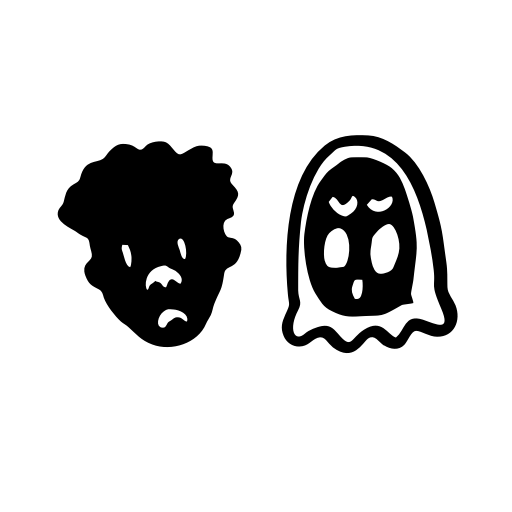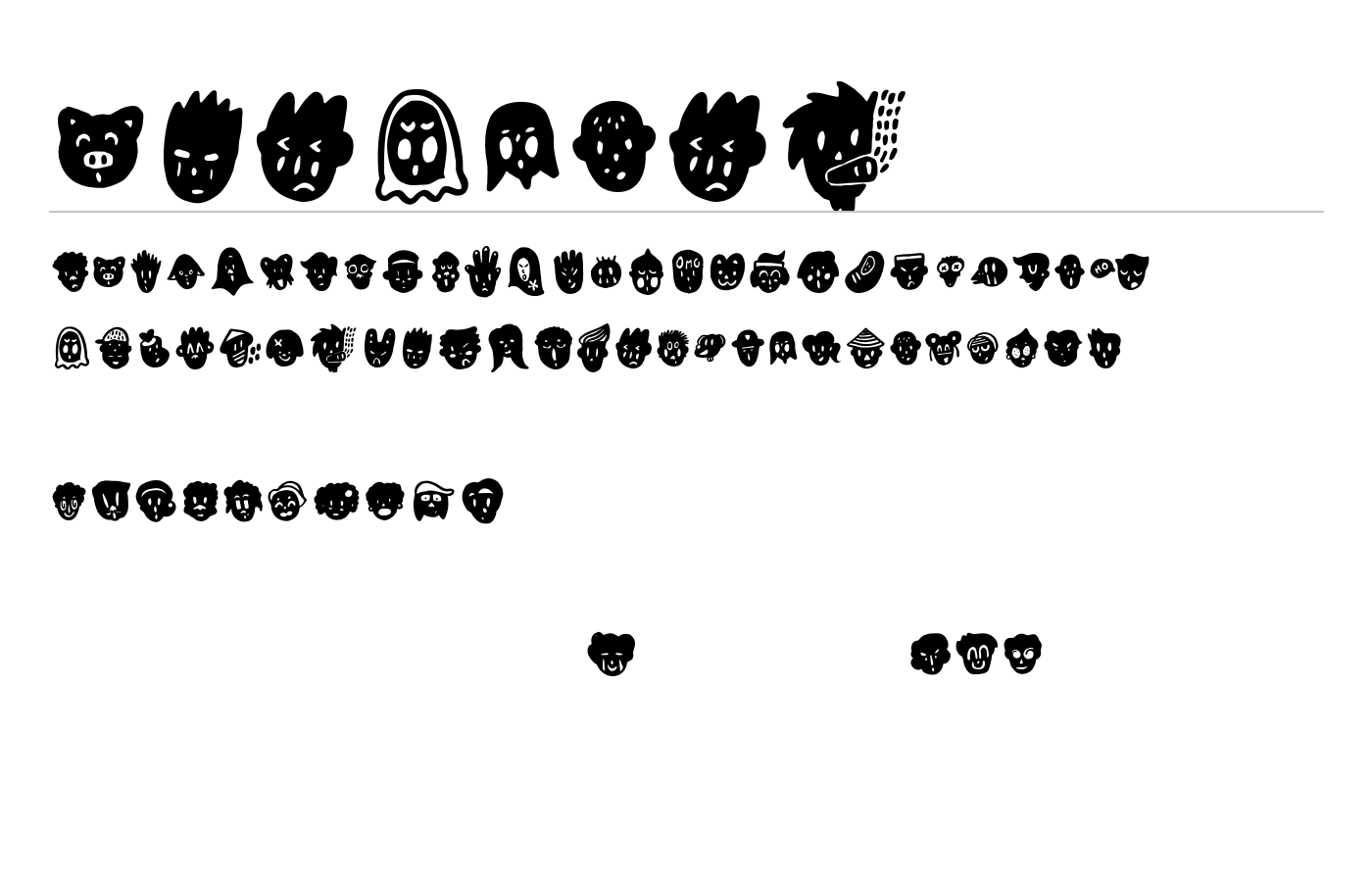
Binarung Font is a playful and quirky symbol font made up entirely of bold, black cartoon-style faces and characters. Its unique, hand-drawn look adds a fun, whimsical personality perfect for creative projects, kids' materials, or casual branding that wants to stand out with characterful, expressive icons rather than traditional letters. This font works best for logos, posters, and social media graphics where a lively and informal vibe is desired.
Binarung Font